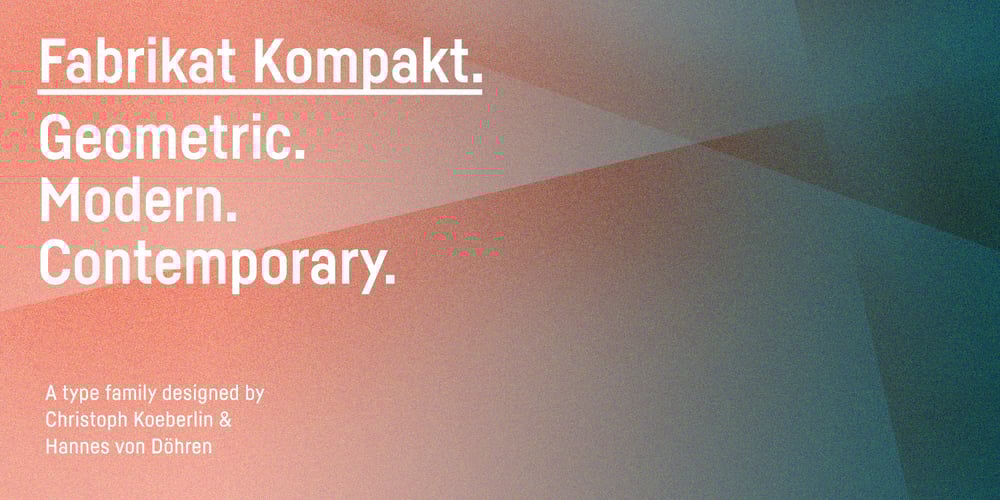
Fabrikat Kompakt
Fabrikat Kompakt font
Fabrikat Kompakt Font Family was designed by Hannes von Döhren, Christoph Koeberlin and published by HVD Fonts. Fabrikat Kompakt contains 14 styles and family package options. Fabrikat Kompakt (formally known as Fabrikat) is a type family designed by Christoph Koeberlin with creative input of Hannes von Döhren. The Sans Serif family is published by HVD Fonts and consists of seven weights plus matching italics. Its geometric design is based on German 20th century engineers’ typefaces and has a plain and precise appearance. The shapes are optically corrected, yet retain an uncut charm. They work best in display as well as text sizes. The type family is equipped for complex, professional typography with OpenType Features like alternate letters, arrows, fractions and an extended character set to support Central and Eastern European as well as Western European Languages.